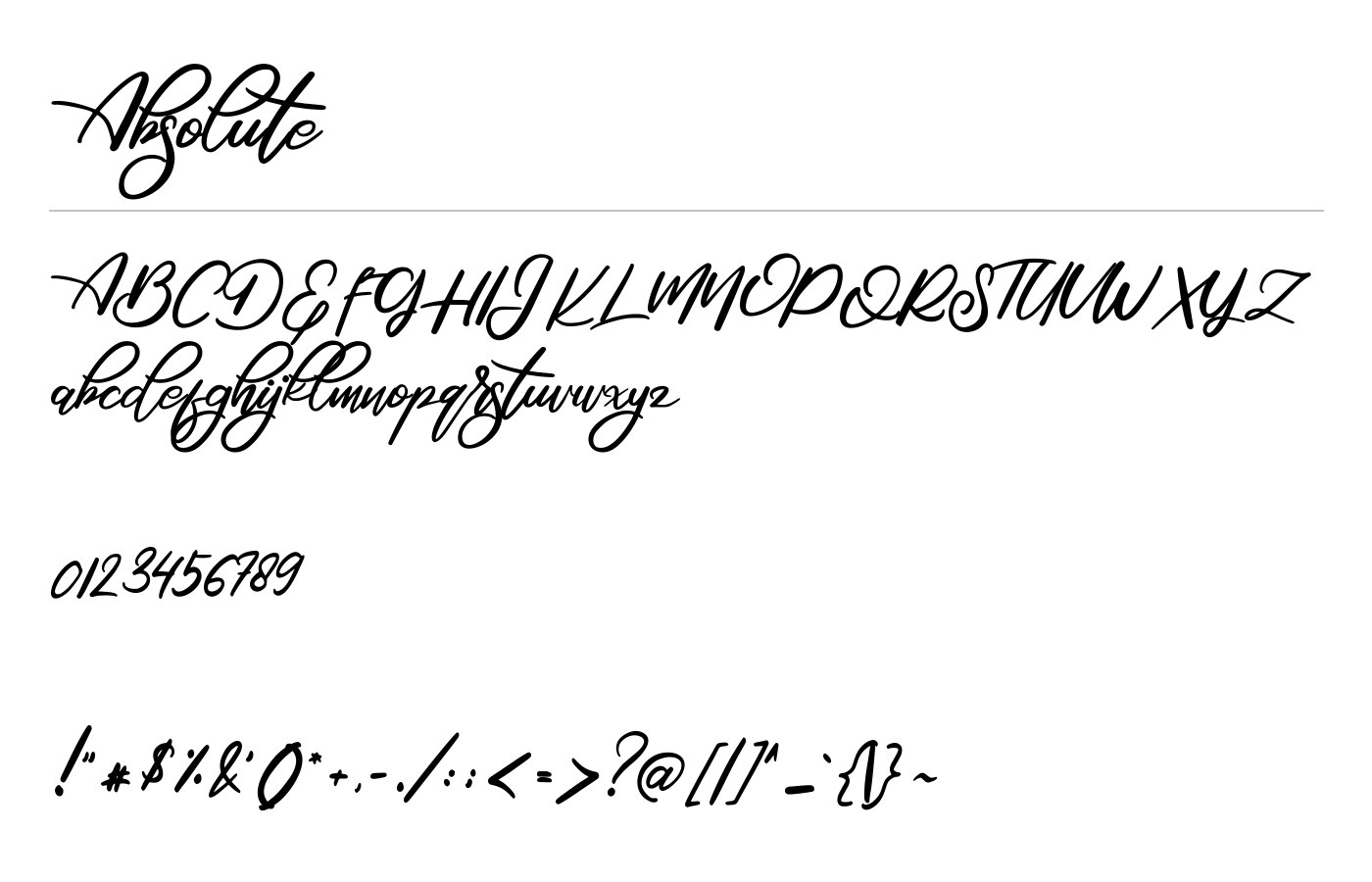
Absolute Font is a stylish script typeface with elegant, flowing letterforms that mimic graceful handwriting. Its smooth, connected strokes and balanced contrast give it a sophisticated yet approachable feel, making it perfect for invitations, branding, and elegant design projects where a personal touch is desired. This font works well in headlines and decorative uses, adding a refined, artistic flair to any creative work.
Absolute Font